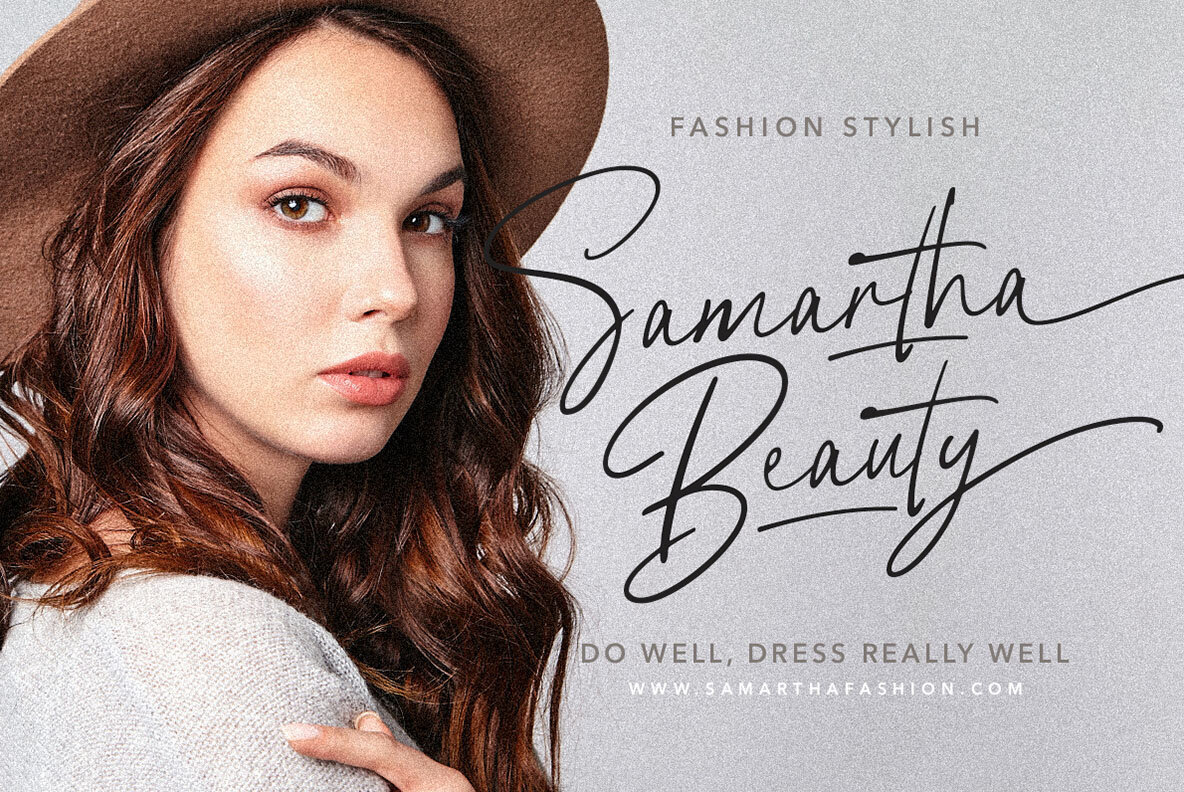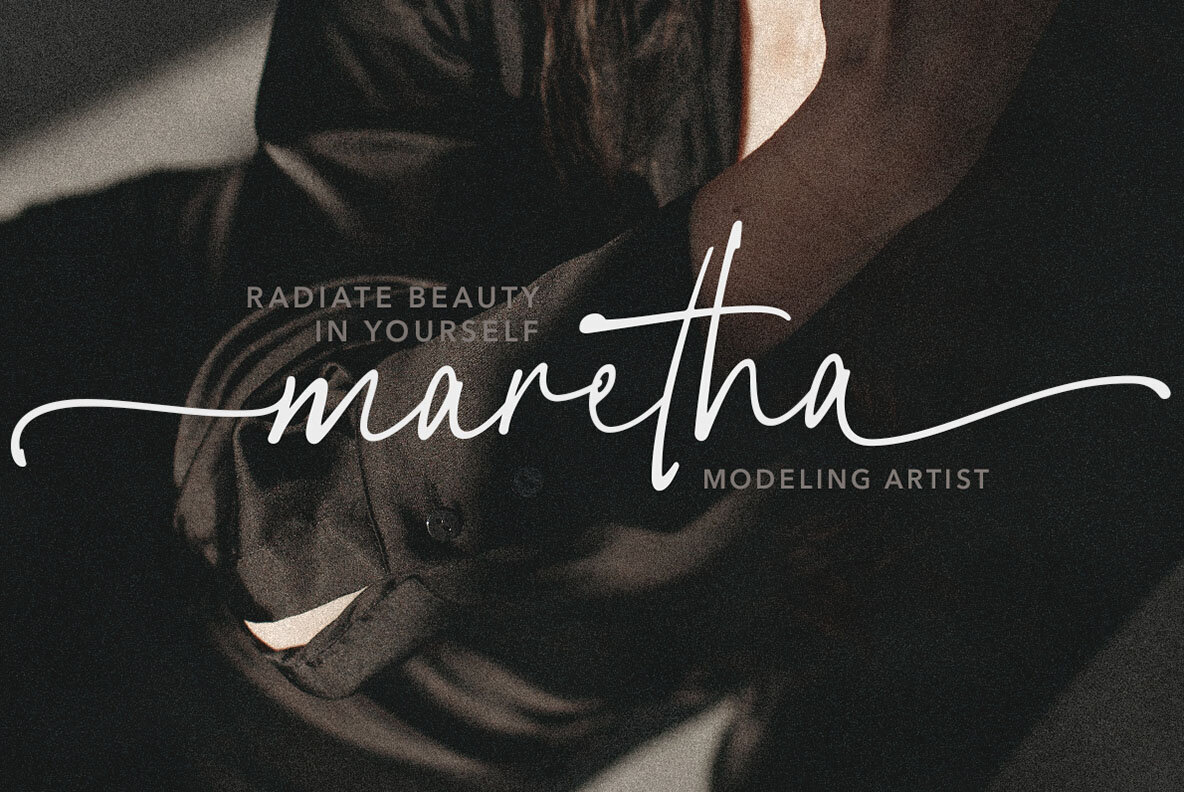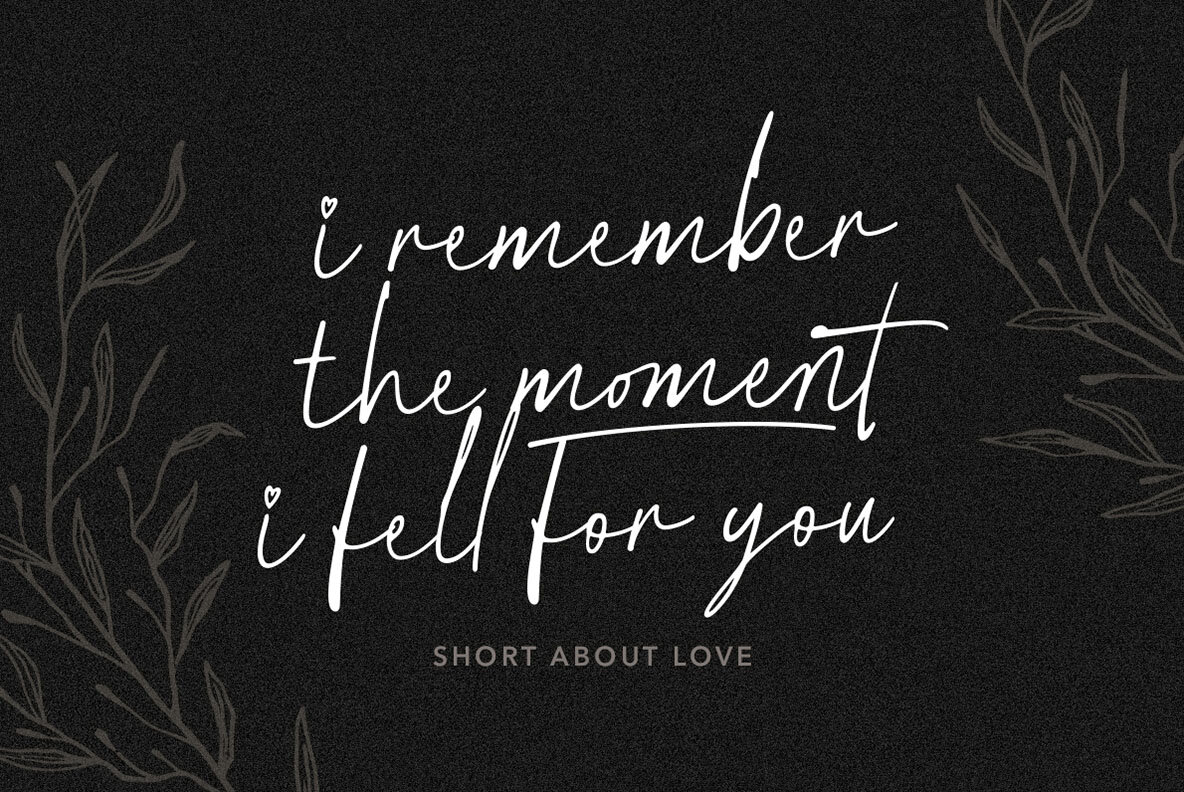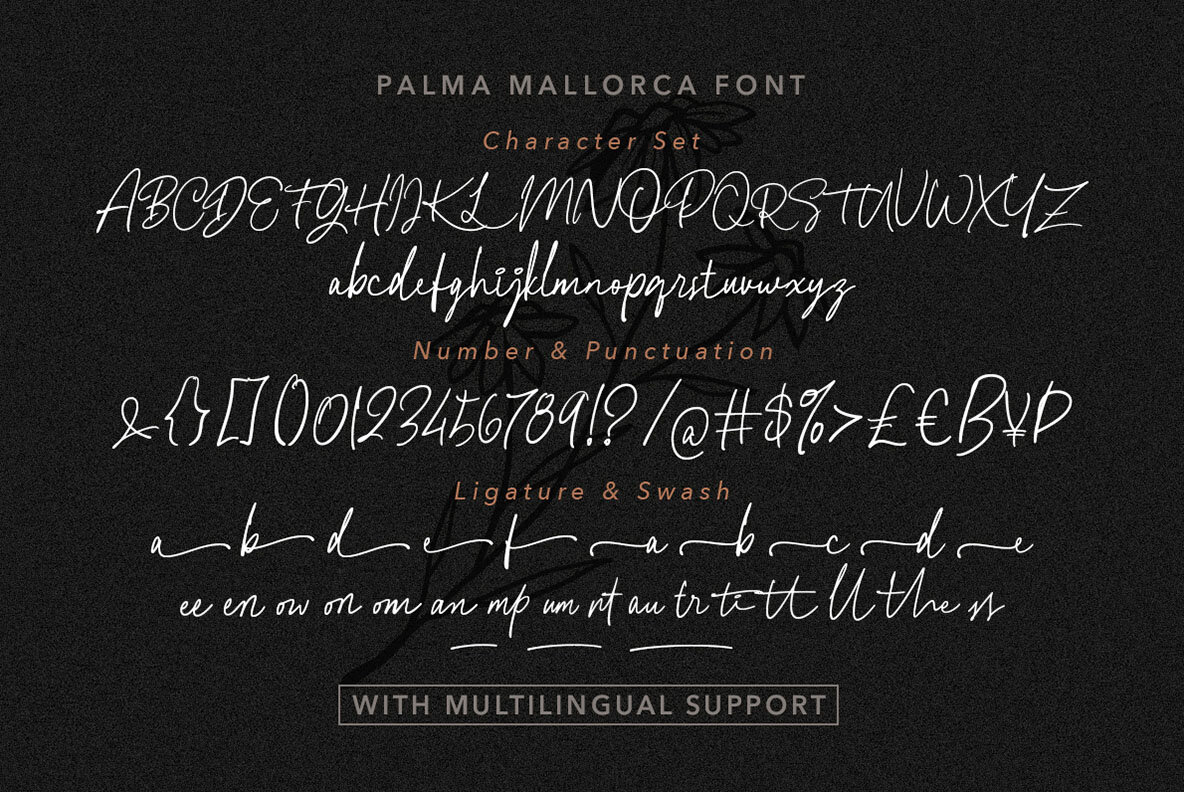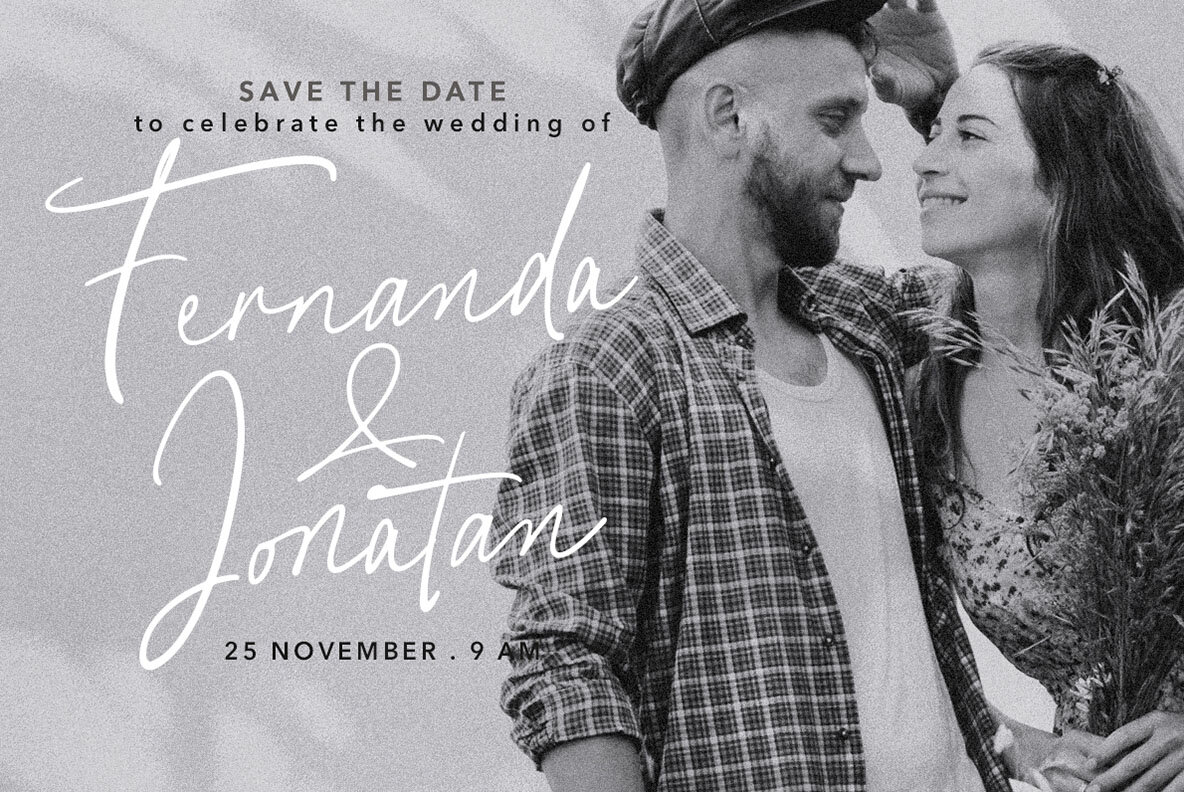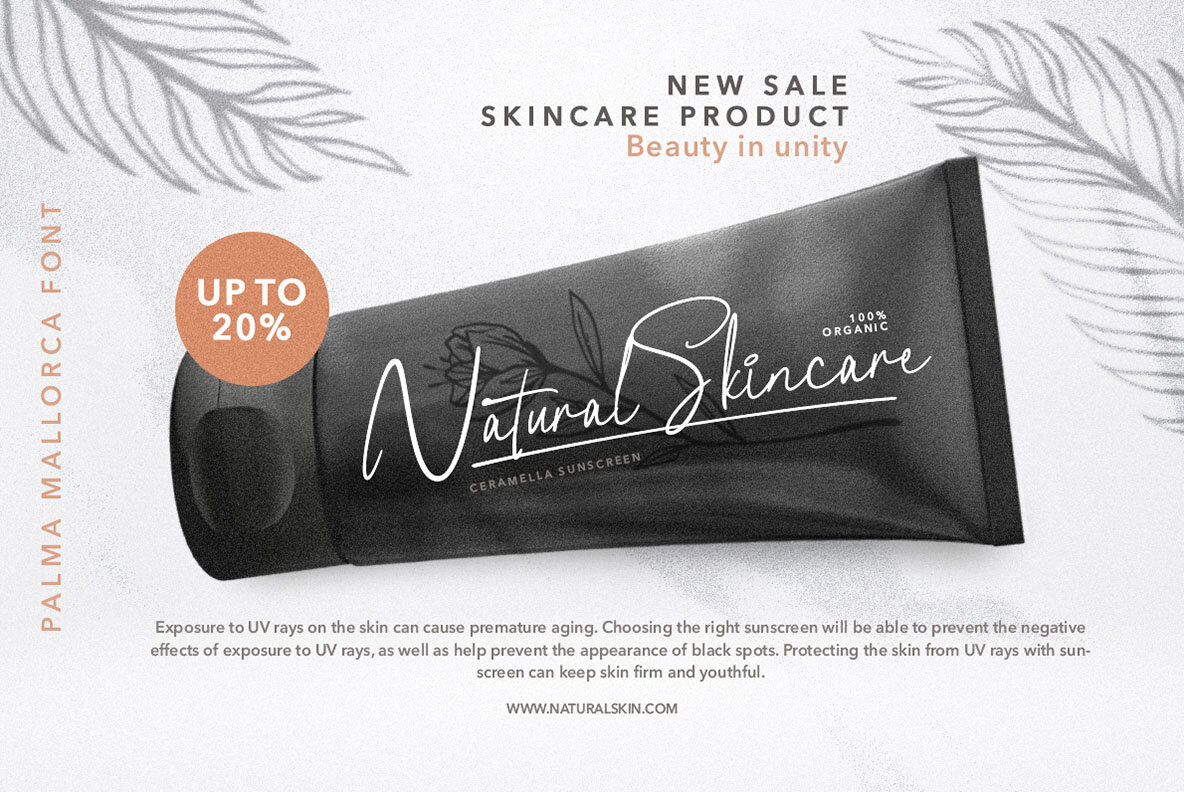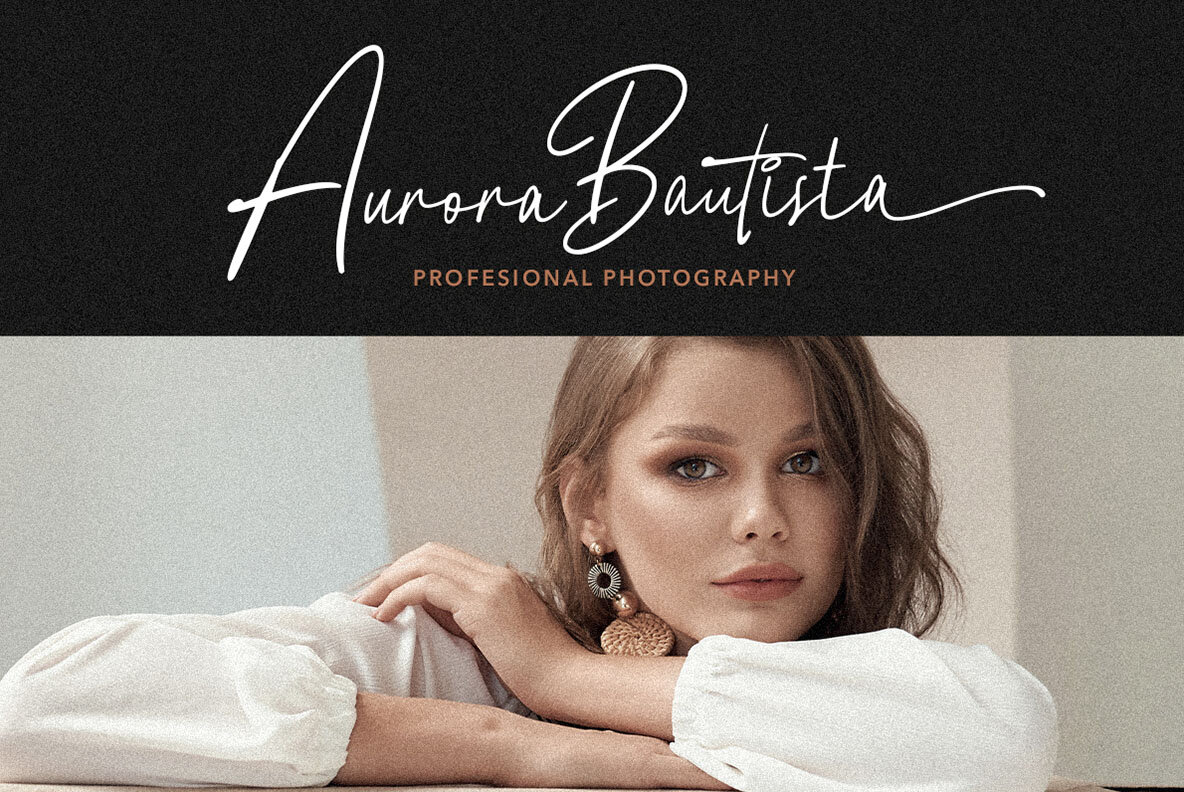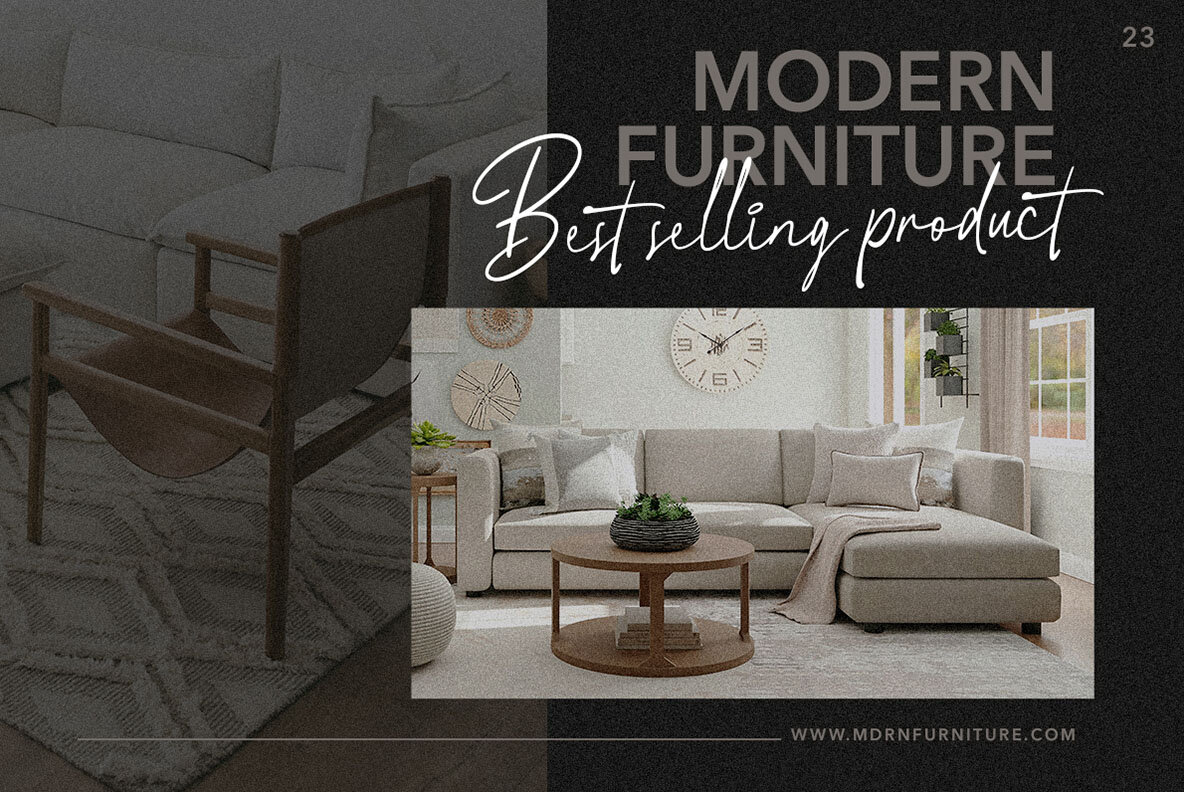
Palma Mallorca Font
Palma Mallorca Medium
Palma Mallorca by Letterhend Studio is a monoline handwritten script font that effortlessly blends casual charm with a hint of chic sophistication. Its playful strokes and natural flow embody the essence of relaxed elegance, making it the ideal choice for diverse creative projects. Whether designing invitations, branding materials, or social media graphics, Palma Mallorca imparts a unique and captivating personal touch. We recommend using software that supports OpenType features and Glyphs panels, such as many Adobe applications and Corel Draw. This allows full access to all Glyph variations.Palma Mallorca: A Monoline Handwritten Script Font